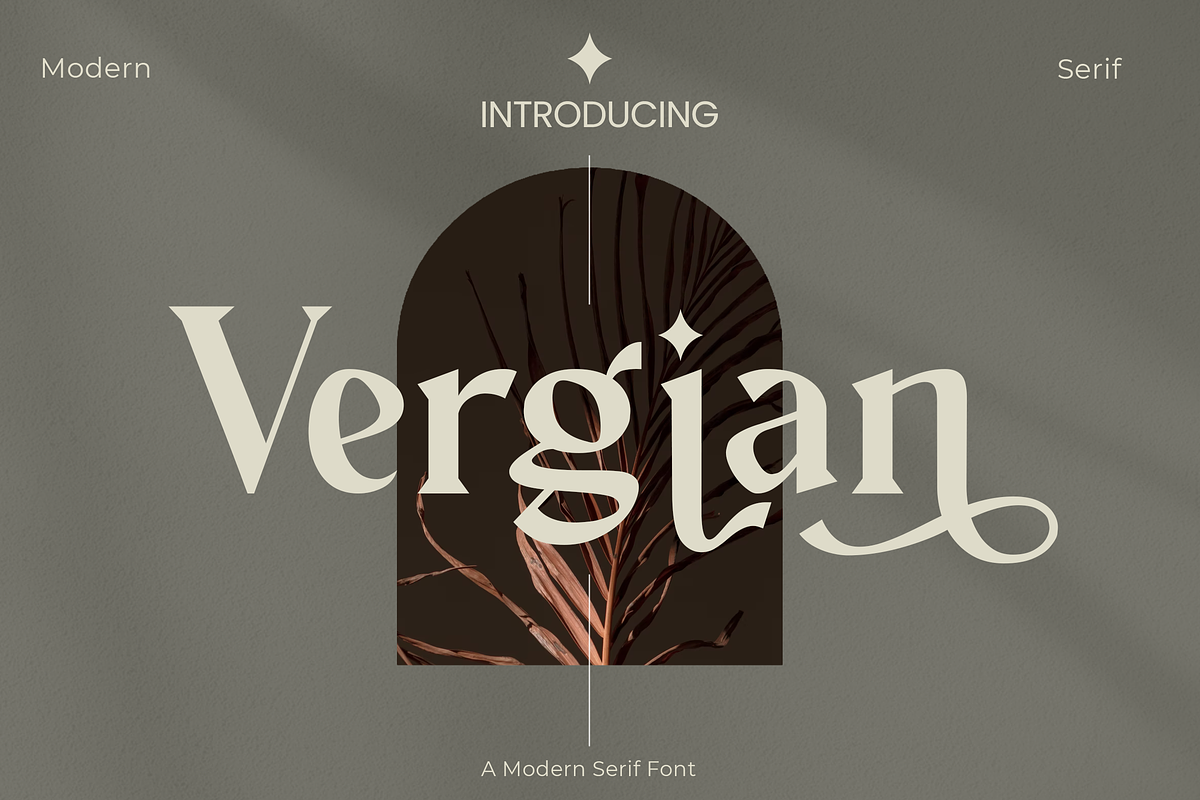
Modern Serif Font Free Download is a sleek and sophisticated typeface designed to bring a touch of elegance and professionalism to your designs. With its clean lines, sharp serifs, and contemporary feel, this font is perfect for a wide range of projects, from logos and branding to editorial designs and websites. Its versatility makes it ideal for both digital and print media, offering a polished, high-end look for your work. Whether you're creating a corporate brand identity or designing a stylish magazine layout, Modern Serif Font Free Download gives you the opportunity to experiment with its elegant design in personal projects before purchasing a commercial license. Elevate your designs with the timeless appeal of this modern serif font.